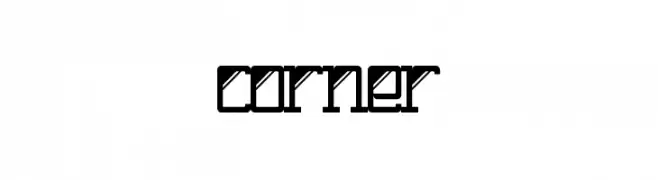
A bold, geometric font with a futuristic and tech-inspired design.
A bold, futuristic font with geometric shapes and a strong, modern presence.
A bold, futuristic font with angular, italicized characters.
A bold, geometric font with a futuristic, three-dimensional style.
A bold, italic, futuristic font with geometric shapes and thick outlines.